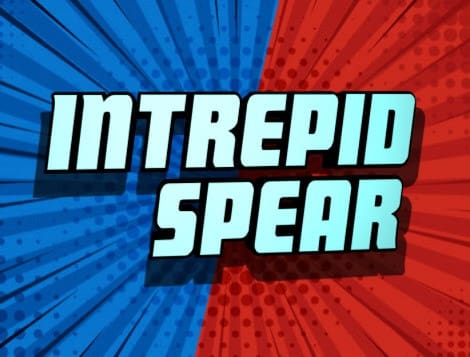
Intrepid Spear Font
Intrepid Spear Font, Suitable for any design needs : logo, branding, modern advertising design, logos, poster quote, book / cover Title, editorial design, website / blog, card, t-shirts,…
IntrepidSpear breaks down into 2 sub-families: Regular and Lower Case.